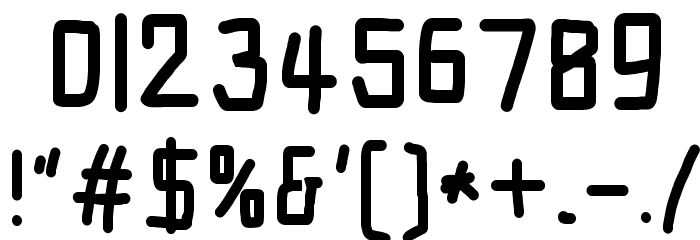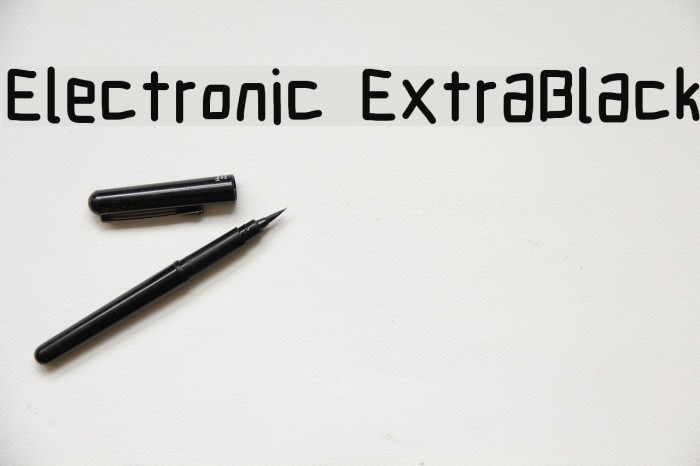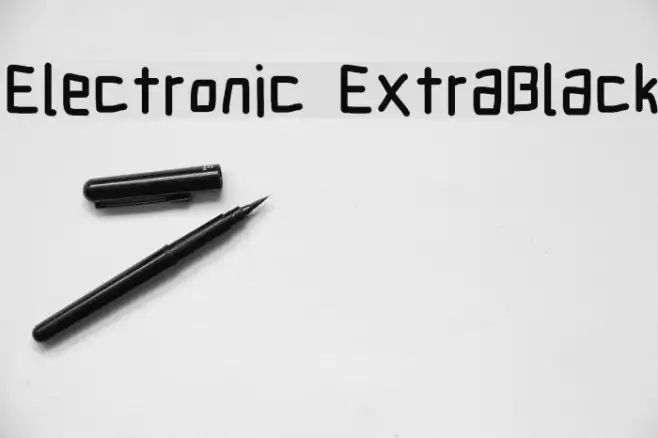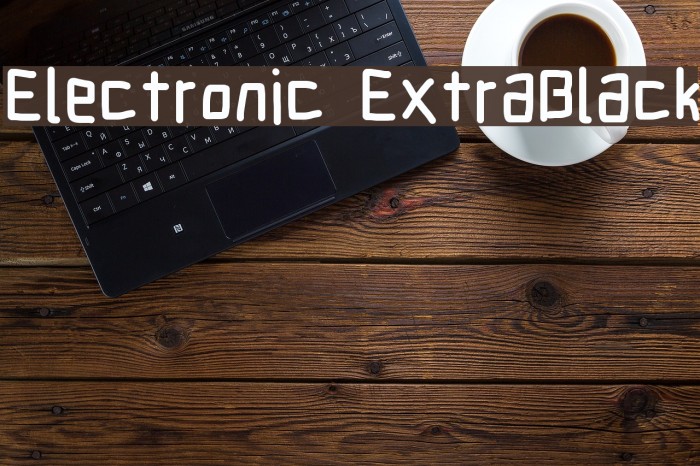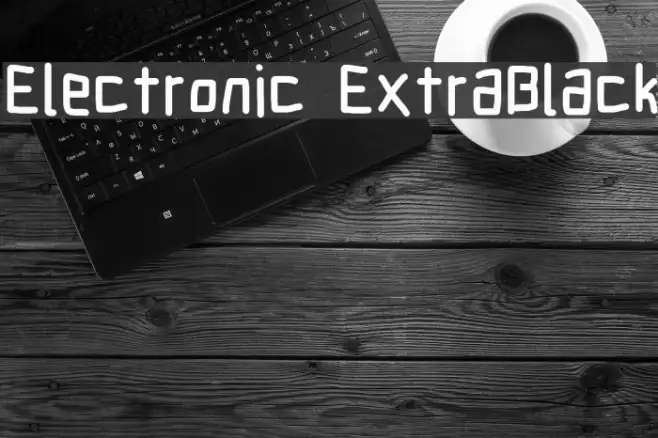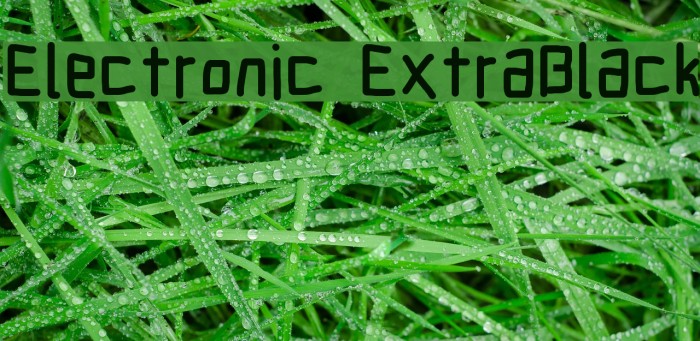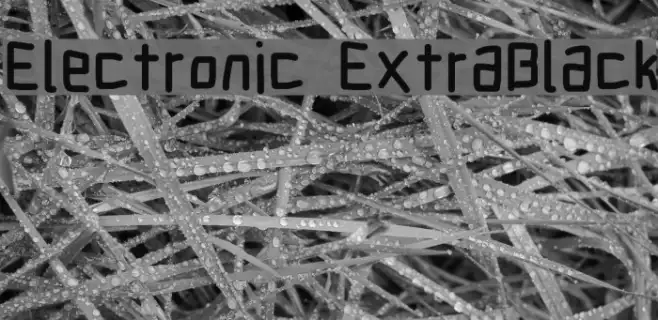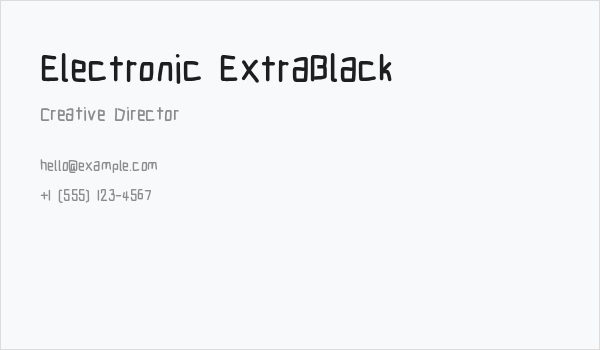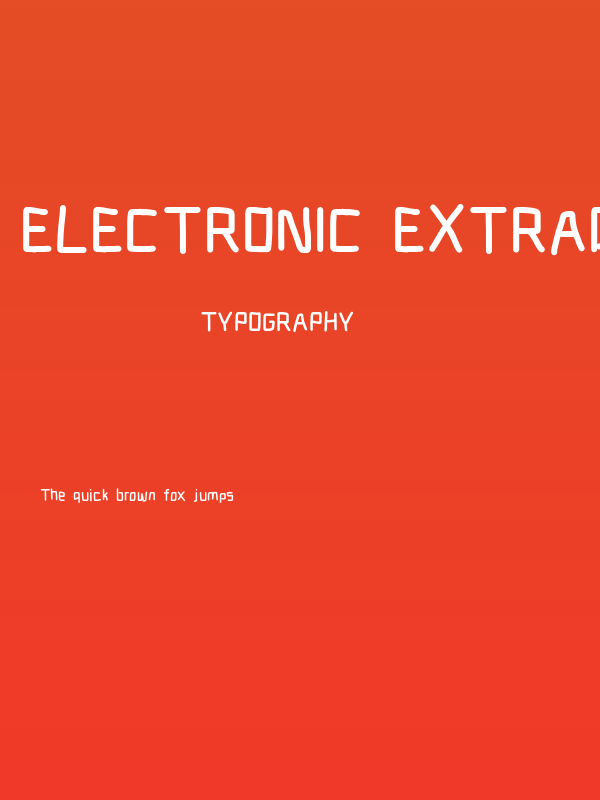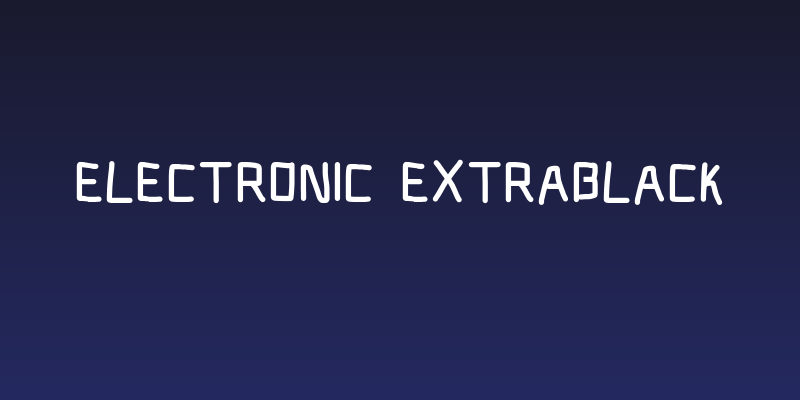
Electronic ExtraBlack Font
Electronic ExtraBlack Description
This font features a bold, geometric style with a distinctly modern and digital aesthetic. The characters are uniformly thick, giving them a strong presence on the page. The uppercase and lowercase letters maintain a consistent height, contributing to a cohesive appearance. The numerals are clear and easy to read, while the special characters are designed to match the overall style. The font's structure is slightly rounded, which softens its otherwise technical look, making it suitable for a variety of digital and print applications.
Proposed ProjectsIdeal for tech-related branding, digital interfaces, posters, and futuristic designs.